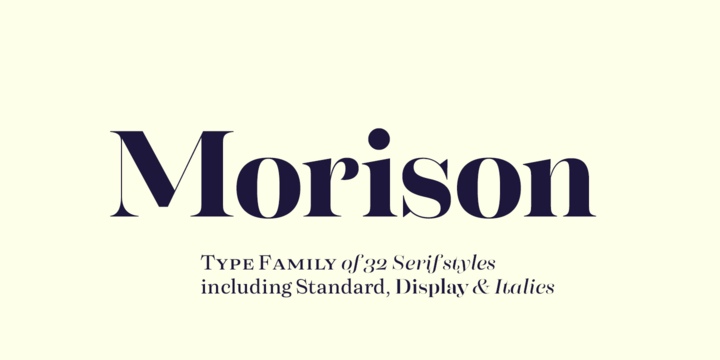
Morison Font
Morison Font is perfect for sophisticated editorial layouts, premium book publishing, professional business documents, elegant magazine designs, upscale restaurant menus, classical concert programs, academic publications, luxury brand communications, and timeless corporate identities.
What makes Morison Font exciting is its masterful blend of traditional serif elegance with contemporary refinement that creates exceptional readability and distinguished visual presence. The font's carefully balanced proportions and classical letterform construction deliver both scholarly authority and modern accessibility, making it the ideal choice for organizations seeking to project intelligence, trustworthiness, and enduring quality.
Morison Font family includes comprehensive weight variations from Light to Bold, along with matching italic styles, small caps, and old-style numerals, providing designers with complete typographic systems for sophisticated hierarchical layouts and professional publishing applications.
The meticulously crafted character spacing and kerning ensure optimal performance in both digital and print environments, while extensive language support makes it valuable for international publishing markets.
Morison Font distinguishes itself through its remarkable versatility and timeless appeal, proving that classical design principles remain relevant in modern communication. This exceptional typeface elevates every application, transforming ordinary text into distinguished communications that command respect and attention while maintaining perfect readability across all media formats.